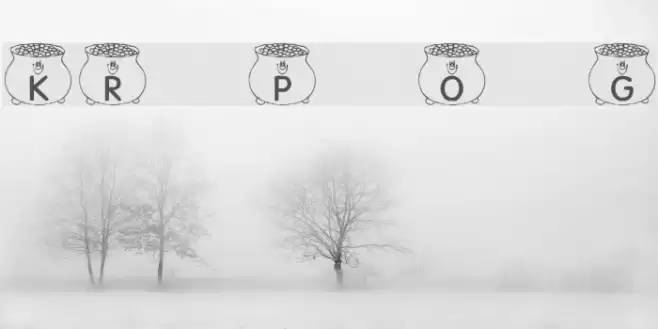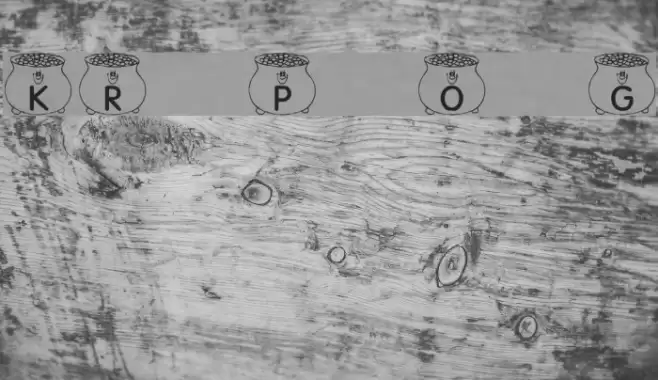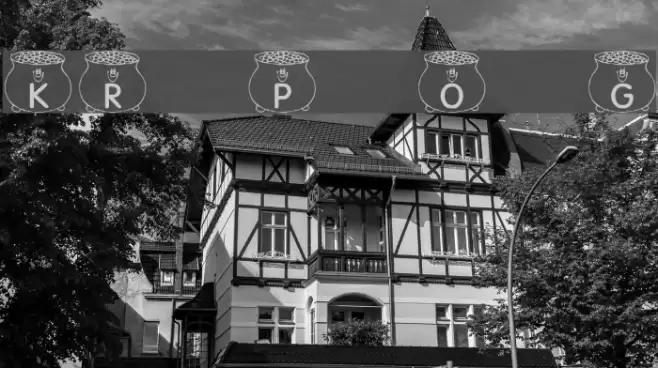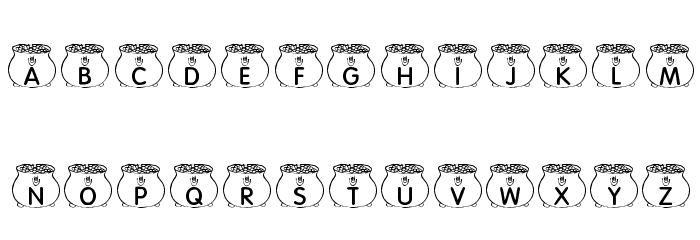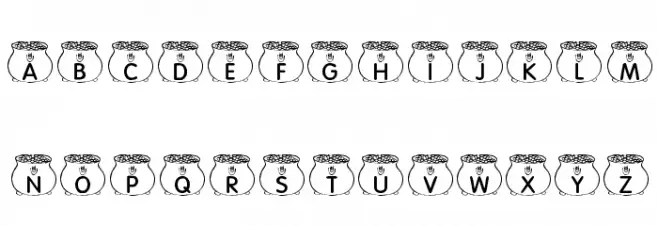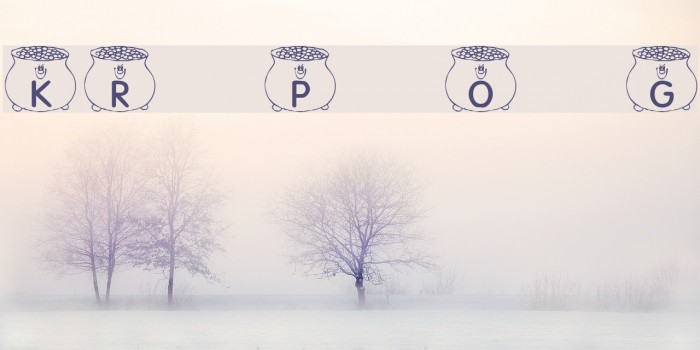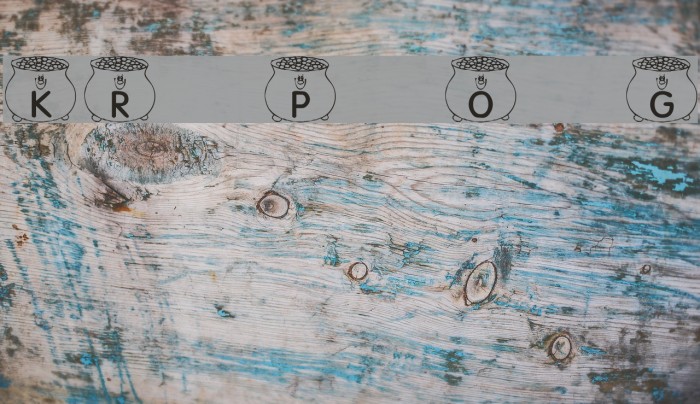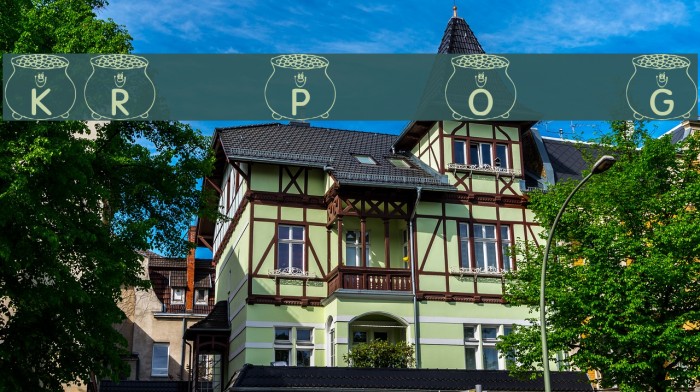
KR Pot O' Gold Font
KR Pot O' Gold Description
This decorative font features each letter encased within a whimsical pot of gold, adding a playful and thematic element to the design. The letters are bold and clear, ensuring readability despite the intricate background. The font is ideal for festive or themed projects, particularly those related to luck, treasure, or celebrations. Its unique style makes it stand out, capturing attention with its creative presentation.
A playful decorative font with letters inside pots of gold from Uncategorized fonts.
- Proposed Projects: Ideal for themed invitations, greeting cards, festive banners, or children's book covers.